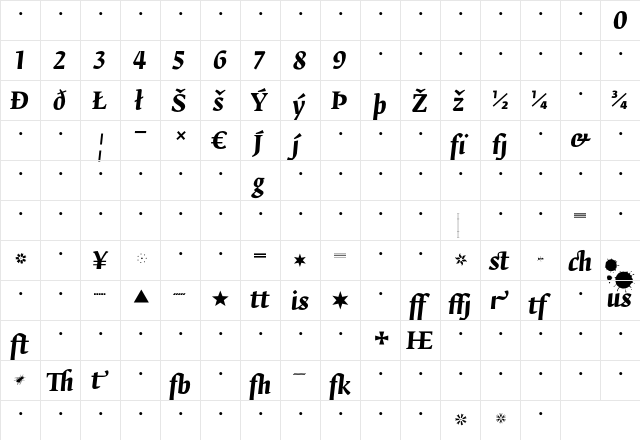
FedraSerifB BoldItalicExpert Font Preview
Design Context for FedraSerifB Typeface
FedraSerifB carries the refined structure of traditional serif typography, with bracketed terminals and considered proportions that communicate credibility and craft. Its italic angle brings a sense of urgency and motion to the letterforms. The heavy weight commands attention and anchors typographic hierarchies.
Pro Tip: Use FedraSerifB for editorial body copy and considered headline work. Pair with a neutral sans for UI elements or captions to create a classic hierarchy.